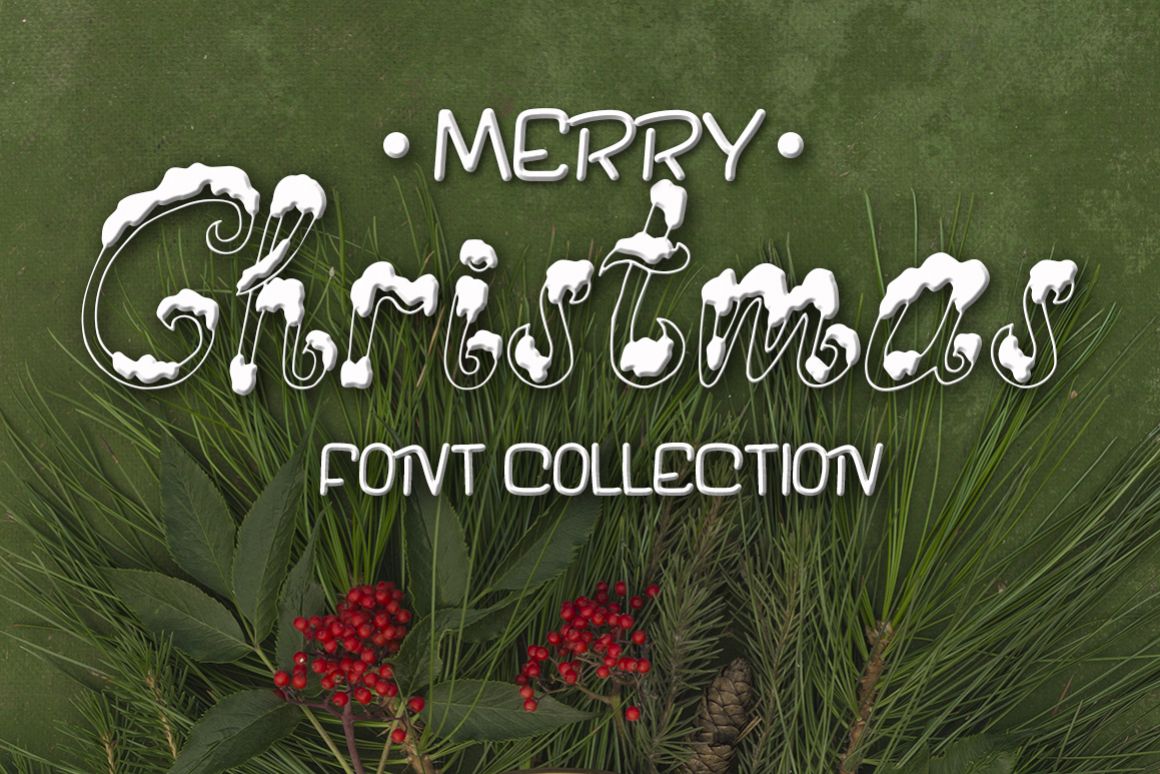
Three fonts for Christmas cards
Christmas fonts pack. Perfect for holiday cards.
This set includes:
• Snow-covered font
• Simple extra font
• Simple bold font